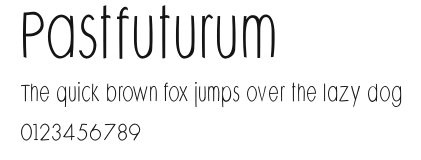
• Font Name: Pastfuturum
• Full Font Name: Pastfuturum
Pastfuturum.ttf is a modern, elegant sans-serif font designed for ultimate readability and visual harmony. Perfect for branding, headlines, web design, and print materials.